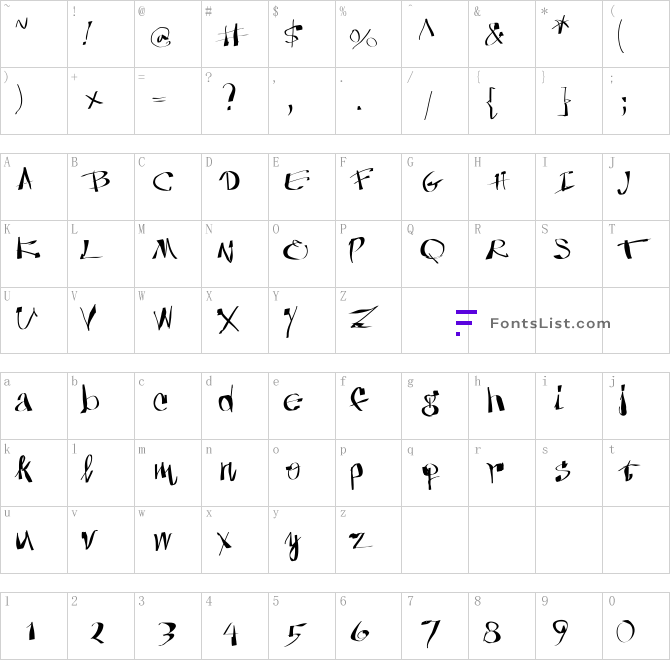
- Font Name:Anarchica
Anarchica.ttf is a very beautiful artistic font, Anarchica.ttf is widely used in the design and printing of various books and pictures,Anarchica.ttf has a strong visual impact,Anarchica.ttf is a commonly used font in newspapers, magazines and books, and is used in posters, e-commerce Poster design, store design, logo design, font design and other fields.Anarchica.